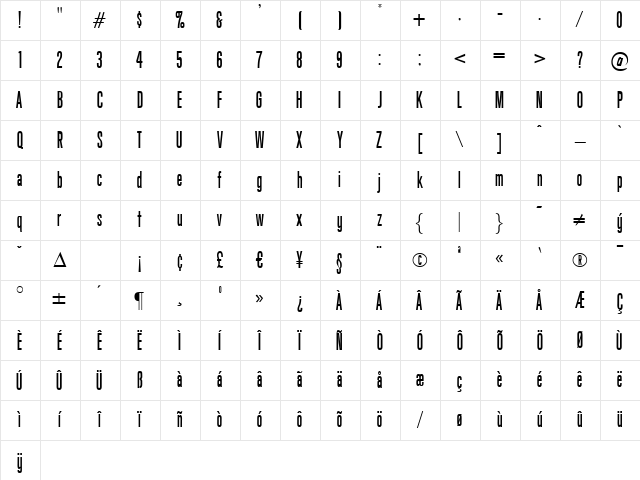
Goodge Regular
Complete Goodge Regular glyph index. Displaying only characters natively supported by Goodge Regular font.
Design Context for Goodge
Goodge is a composed and adaptable typeface that performs quietly and consistently across a wide range of design contexts.